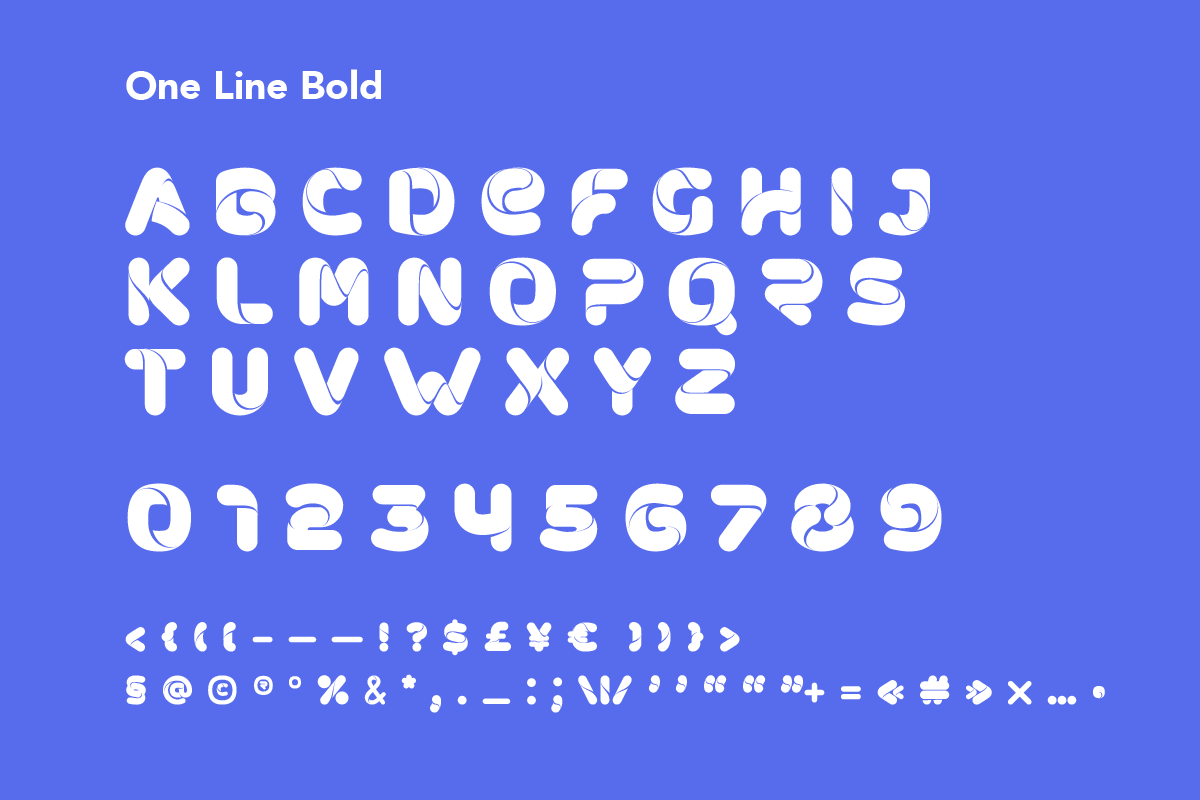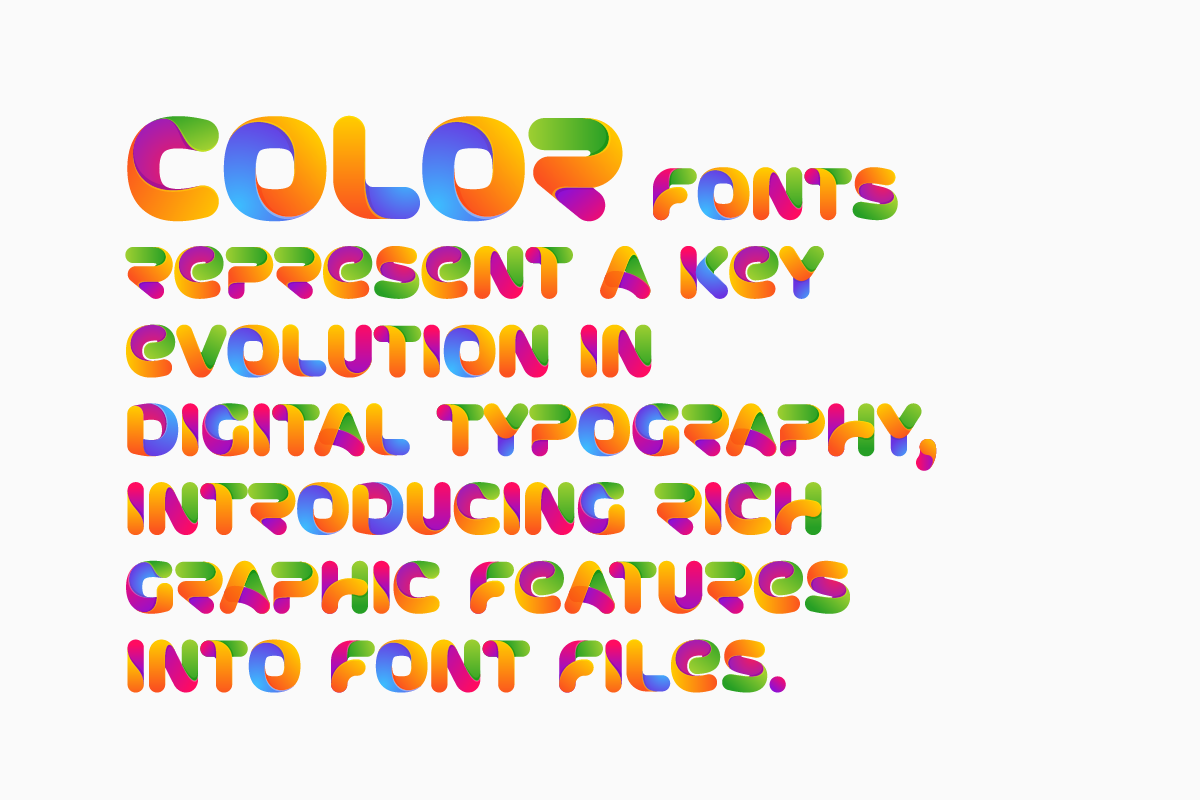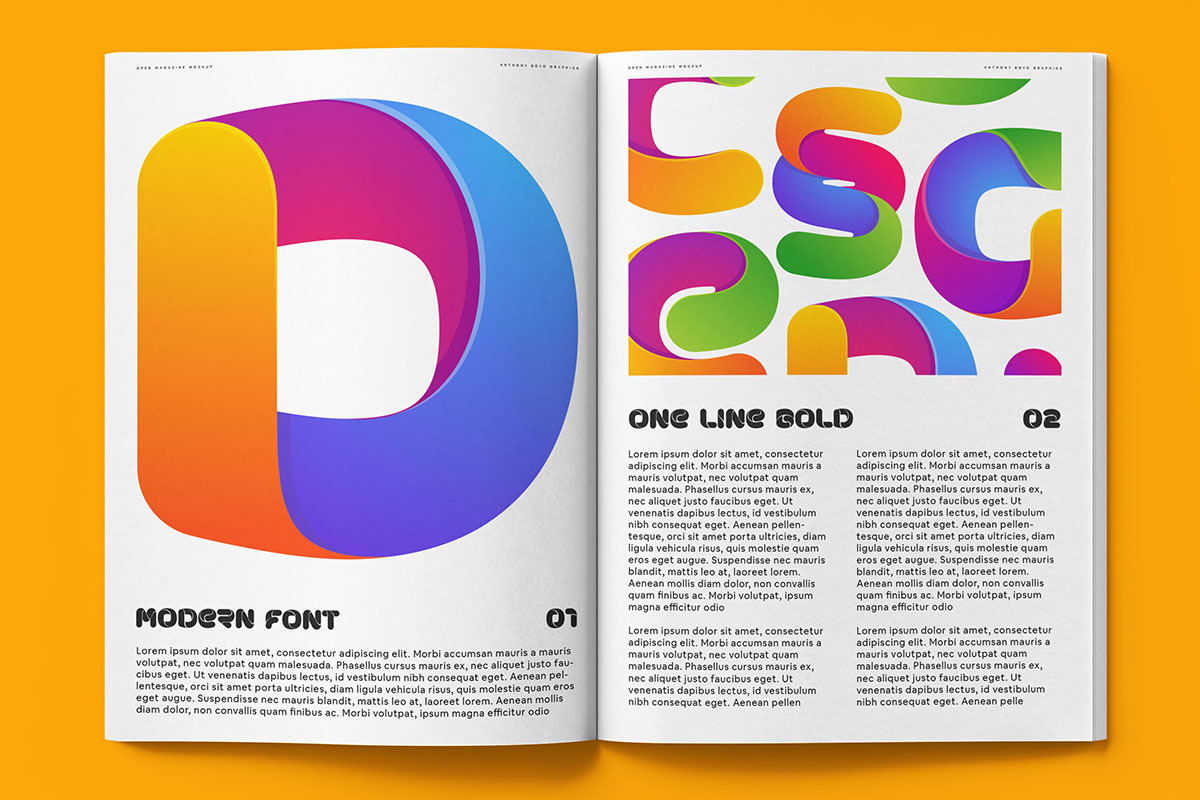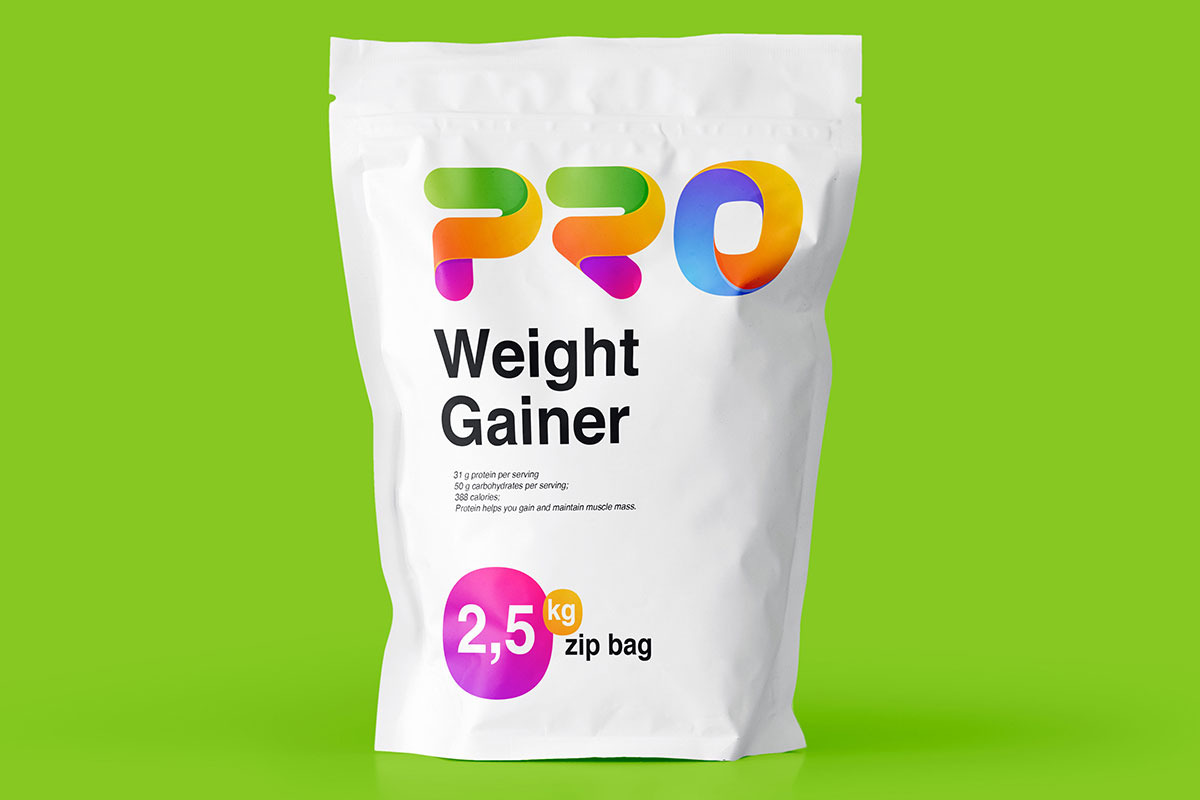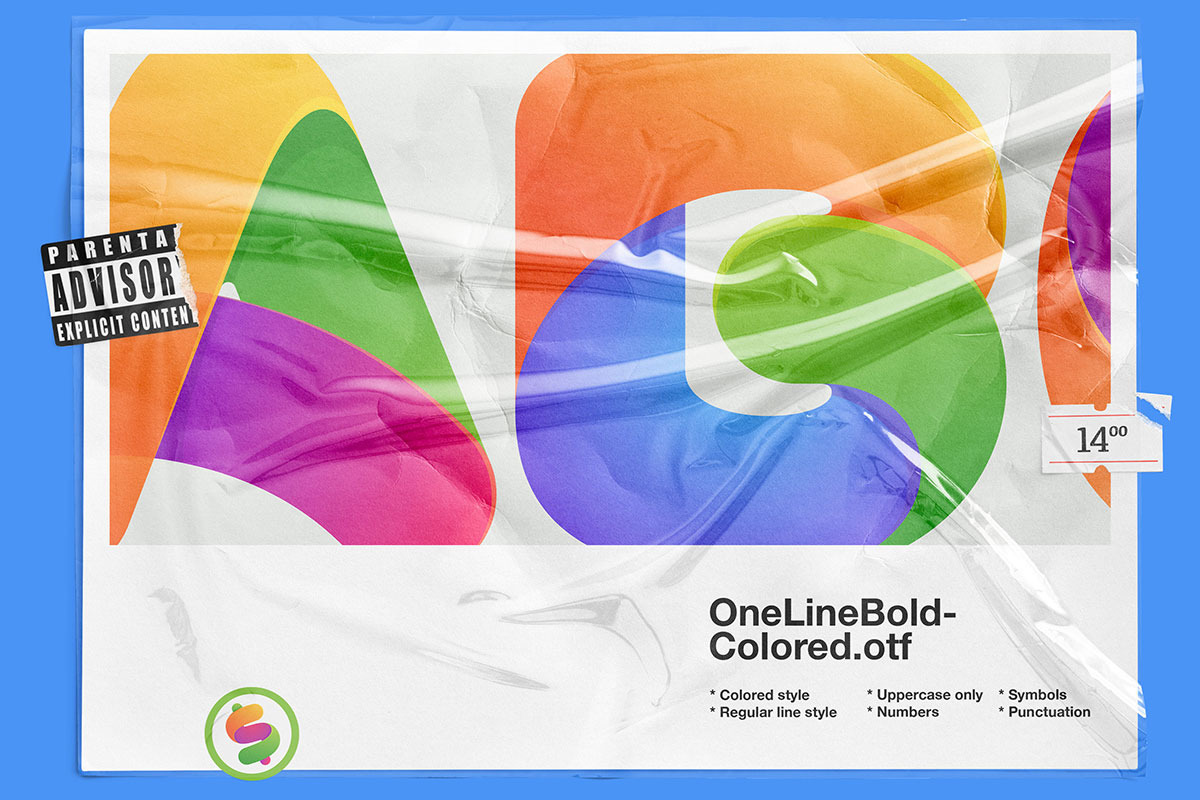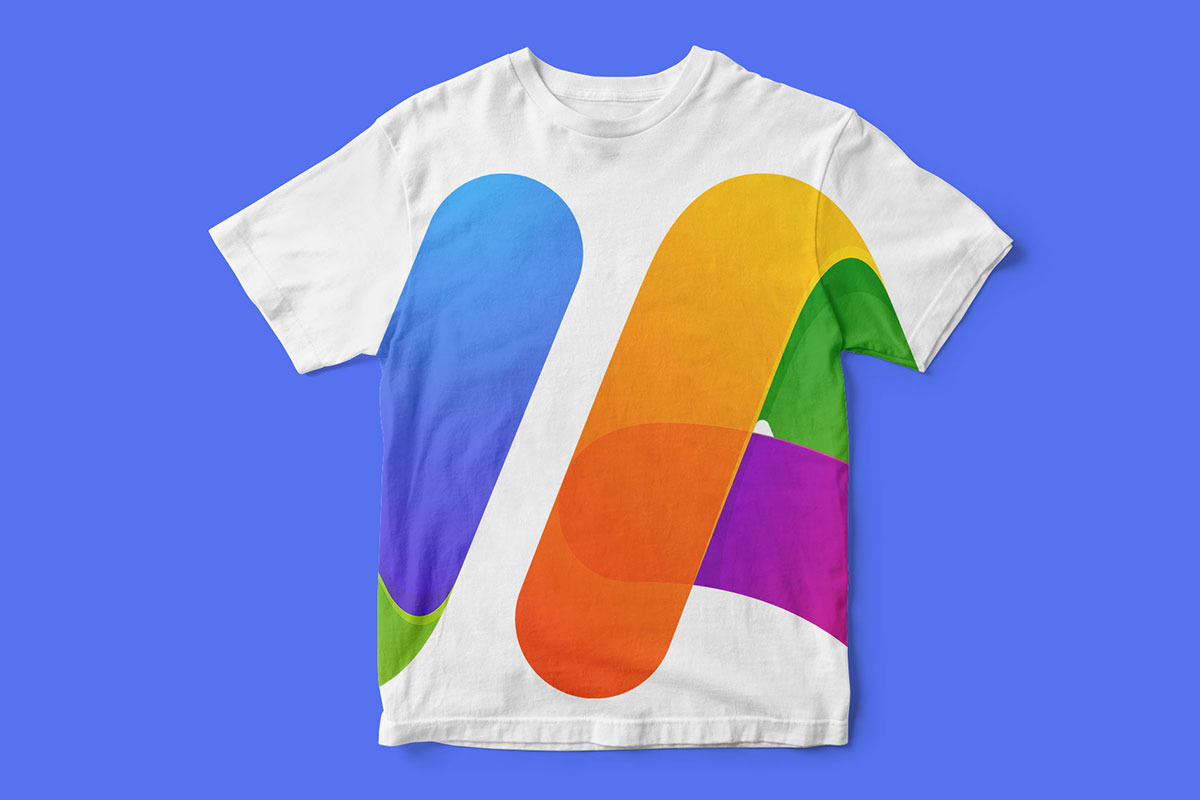
One Line Bold Colored font
One Line Bold Colored font by kaershop is a font selected for branding, posters, packaging, typography.
- There are few minor changes in lines and colors and I've added: numbers, symbols and punctuation glyphs.
Why One Line Bold Colored font is worth a look
One Line Bold Colored font by kaershop fits naturally into Branding, posters, packaging, typography.